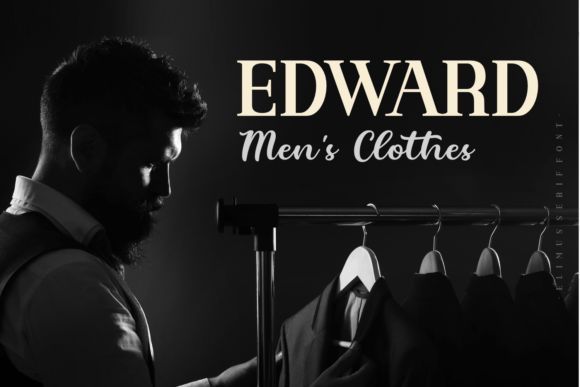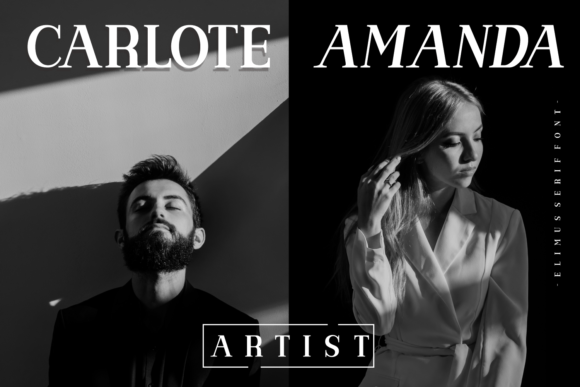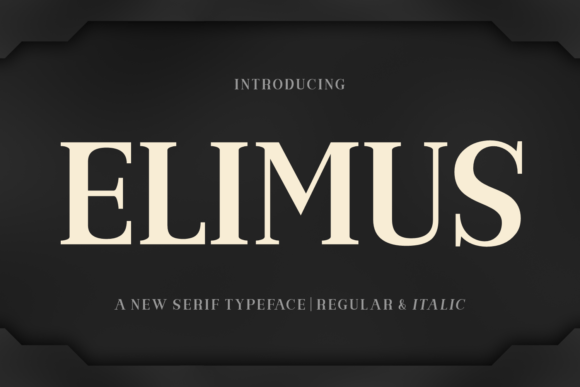
Introducing Elimus Font: Elevate Your Designs with Classic Elegance
Are you on the hunt for a font that exudes sophistication, elegance, and versatility? Look no further than Elimus Font, a classic and neat serif font that’s sure to elevate your designs to new heights. In this article, we’ll dive into the world of Elimus Font, exploring its features, benefits, and uses, as well as provide tips and inspiration for designers and crafters looking to make the most of this incredible typeface.
The Essence of Elimus Font
Elimus Font is a masterclass in classic design, boasting a timeless aesthetic that’s both stylish and refined. Its serif structure lends a sense of tradition and authority, while its clean lines and balanced proportions ensure a level of sophistication that’s hard to match. Whether you’re working on a branding project, a website, or a craft, Elimus Font is the perfect choice for those seeking a dependable and versatile typeface.
Key Features of Elimus Font
- Classic Serif Design: Elimus Font features a traditional serif structure, complete with subtle flair and refined details.
- Neat and Clean Lines: The font’s lines are meticulously crafted, ensuring a level of clarity and legibility that’s second to none.
- Versatile and Adaptable: Elimus Font is designed to be versatile, making it perfect for a wide range of applications, from headings and titles to body text and more.
- Elegant and Sophisticated: With its refined aesthetic and balanced proportions, Elimus Font exudes a sense of elegance and sophistication that’s sure to impress.
Benefits of Using Elimus Font
So why choose Elimus Font for your next project? Here are just a few benefits you can expect:
- Instant Credibility: Elimus Font’s classic design and refined aesthetic lend a sense of authority and credibility to any project.
- Improved Readability: The font’s clean lines and balanced proportions ensure excellent readability, even at smaller sizes.
- Flexibility and Adaptability: Elimus Font is designed to be versatile, making it perfect for a wide range of applications and use cases.
- Unique and Memorable: With its elegant and sophisticated design, Elimus Font is sure to help your project stand out from the crowd.
Using Elimus Font in Your Designs
So how can you make the most of Elimus Font in your designs? Here are a few tips and inspiration to get you started:
- Pair with Modern Sans-Serifs: Combine Elimus Font with a modern sans-serif font for a striking contrast that adds visual interest.
- Use for Headings and Titles: Elimus Font’s elegant design makes it perfect for headings and titles, adding a touch of sophistication to any project.
- Experiment with Colors and Textures: Try pairing Elimus Font with different colors and textures to add depth and visual interest to your designs.
Inspiration and Examples
Still not sure how to use Elimus Font in your designs? Here are a few examples and inspiration to get you started:
- Branding and Logos: Use Elimus Font to create a sophisticated and memorable brand identity.
- Websites and Blogs: Elimus Font’s clean lines and balanced proportions make it perfect for body text and headings on websites and blogs.
- Crafting and DIY Projects: Add a touch of elegance to your crafting and DIY projects with Elimus Font, perfect for titles, headings, and more.